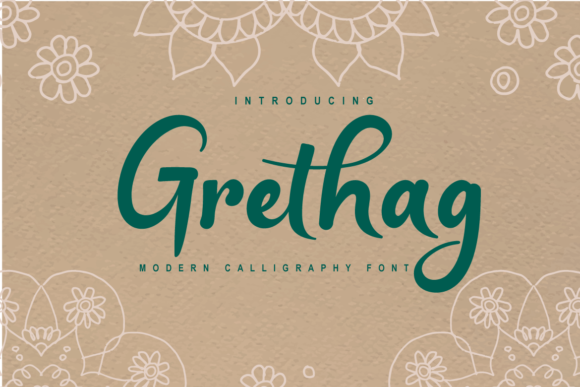
Dive into the world of Grethag Font, the epitome of elegance and grace in the realm of typography. This alluring script font, crafted by the font virtuoso himmahdesign, exudes a charm that will leave you spellbound. Grethag Font boasts a stunning array of stylish alternates and ligatures, elevating your designs to new heights of refinement.
With its impeccable curves and delicate flourishes, Grethag Font adds a touch of sophistication to any project. Its flowing lines evoke a sense of timeless beauty, while its intricate details captivate the beholder's eye. Whether you're designing wedding invitations, creating logos, or crafting social media posts, Grethag Font will transform your words into works of art.
Unleash your creativity and let Grethag Font guide you on an artistic journey. Its versatility knows no bounds, effortlessly adapting to a multitude of design styles. From classic and timeless to modern and edgy, Grethag Font seamlessly blends with your vision, allowing your projects to shine with distinction.
Express yourself with the eloquence of Grethag Font. Its captivating charm will enchant your audience, leaving them captivated by your words. Make a statement that resonates, whether through captivating headlines, alluring branding, or heartfelt personal messages. Grethag Font will amplify your voice, ensuring that your words leave an indelible mark.
Don't settle for ordinary fonts. Embrace the artistry of Grethag Font and let it ignite the passion within your creative soul. Its exceptional quality and meticulous attention to detail will transform your projects into masterpieces. Experience the allure of Grethag Font today and elevate your designs to new realms of brilliance.